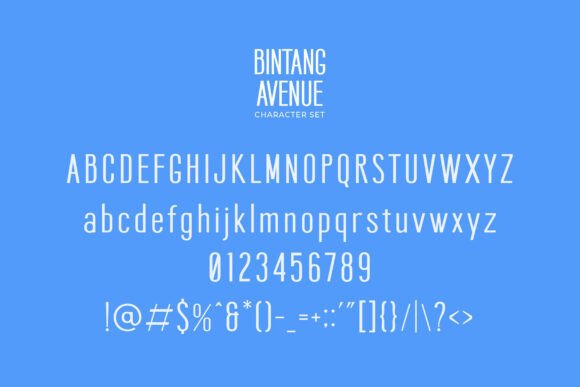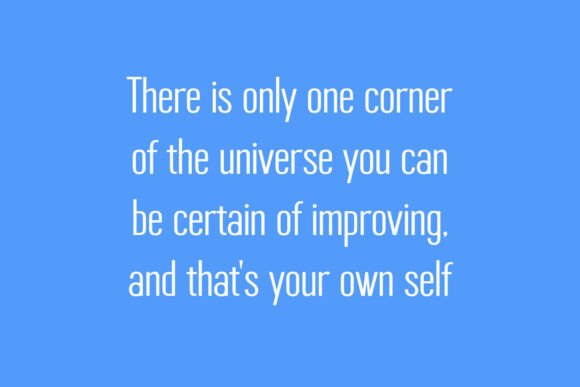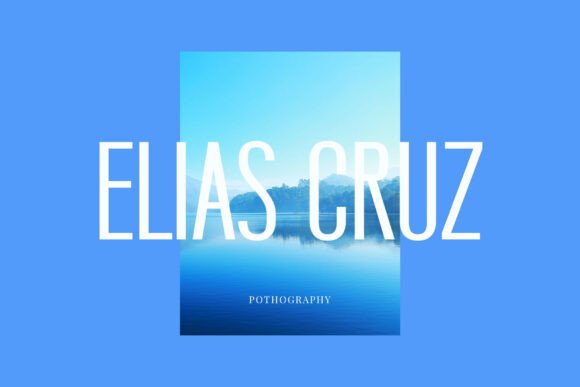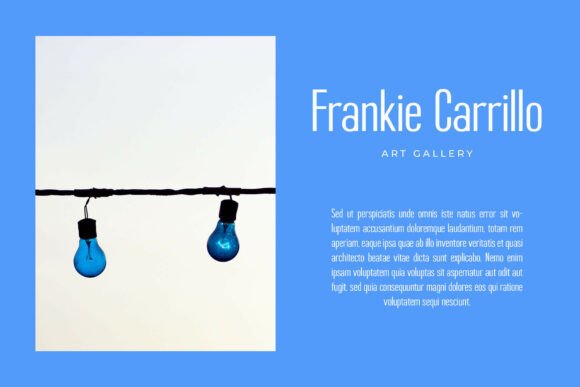
Designing with Style: Unleashing the Potential of Bintang Avenue Font
Have you ever stared at a blank page, struggling to find the perfect font to bring your creative vision to life? You’re not alone. For designers, the quest for the perfect font can be a daunting task. But what if you had a secret weapon at your disposal – a sleek, modern font that elevates your designs and makes a lasting impression?
Enter Bintang Avenue Font, a clean and ultra-sleek condensed sans serif font designed to make your life easier. Whether you’re working on a branding project, crafting editorial layouts, or creating eye-catching posters, Bintang Avenue Font is the perfect companion. Its modern simplicity and space-saving design make it a go-to choice for sophisticated, contemporary looks that leave a lasting impression.
- Font Family: Bintang Avenue
- Font Size: Available in 4 weights (Light, Regular, Medium, Bold)
- Unique Characteristics: Geometric sans-serif design, clean and modern aesthetic, suitable for various digital and print applications
- Character Set: Supports a wide range of languages, including Latin, Cyrillic, and Greek scripts
Bintang Avenue Font Review
Overall, I was quite impressed with the Bintang Avenue font. It has a unique blend of modern and vintage elements that can add a touch of sophistication to any design. ✨ The font’s versatility makes it suitable for a wide range of applications, from fashion and lifestyle brands to luxury and high-end products.
Here are some of the things that I particularly like about the Bintang Avenue font:
- ✨ The font’s elegant and refined feel makes it perfect for creating a high-end or luxury brand identity.
- ✨ The font’s versatility in terms of font sizes and weights makes it easy to use in different design contexts.
- ✨ The font’s unique letterforms and details add a touch of personality and character to any design.
However, there are some limitations to the Bintang Avenue font that I’d like to mention:
- ⚠️ The font may not be suitable for use in small font sizes, as the details and letterforms can become difficult to read.
- ⚠️ The font may not be as readable in certain fonts and font combinations, so it’s essential to test it thoroughly before using it in a design.
Overall, I think the Bintang Avenue font is a great addition to any designer’s toolkit. With its unique blend of modern and vintage elements, it can add a touch of sophistication and elegance to any design. However, it’s essential to be aware of its limitations and use it judiciously to get the best results.
Getting the Most Out of Bintang Avenue Font
To get the most out of Bintang Avenue Font, use it for:
- Casual, modern designs
- Titles and headings
Bintang Avenue Font is commonly used for:
- Restaurant and café menus
- Event invitations and signage
- Personalized gifts and merchandise
Alternatives to Bintang Avenue Font
Playfair Display is an elegant and luxurious serif font ideal for use in high-end branding, invitations, and other materials that require sophistication. It features intricate details and a classic feel, making it a great alternative to Bintang Avenue Font for projects that require a touch of luxury.
Comparison: While Bintang Avenue Font has a more modern feel, Playfair Display offers a more traditional and classic look. Playfair Display is better suited for projects that require a high level of elegance and sophistication, while Bintang Avenue Font is more versatile and can be used in a variety of contexts.
Great Vibes is a modern script font that is perfect for use in creative and artistic projects. It features a unique, handwritten feel that is ideal for branding, signage, and other materials that require a personal touch. Great Vibes is a great alternative to Bintang Avenue Font for projects that require a modern and creative look.
Comparison: While Bintang Avenue Font has a more formal feel, Great Vibes offers a more casual and creative look. Great Vibes is better suited for projects that require a high level of creativity and personal touch, while Bintang Avenue Font is more versatile and can be used in a variety of contexts.
For optimal readability, we recommend using the Bintang Avenue Font at a minimum size of 12 points and a line height of 1.5 times the font size. This will ensure clear and legible text in most applications and screen resolutions.